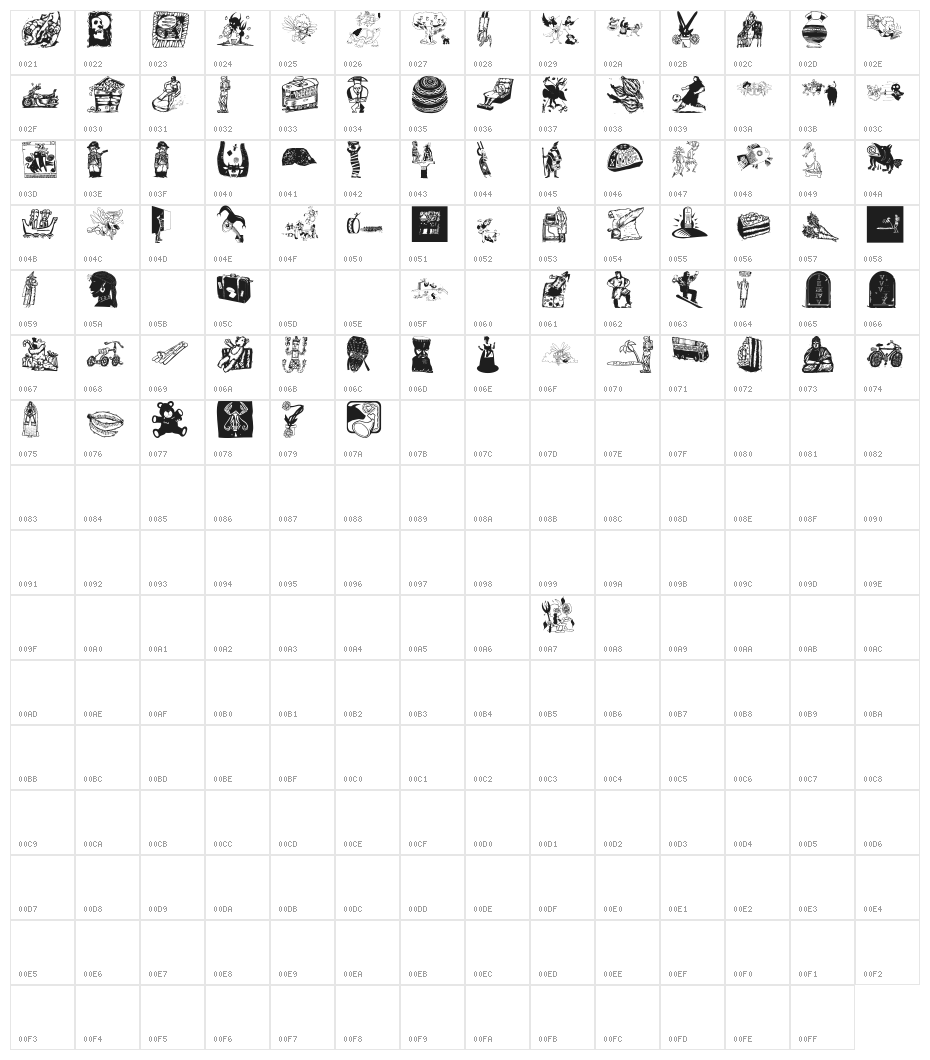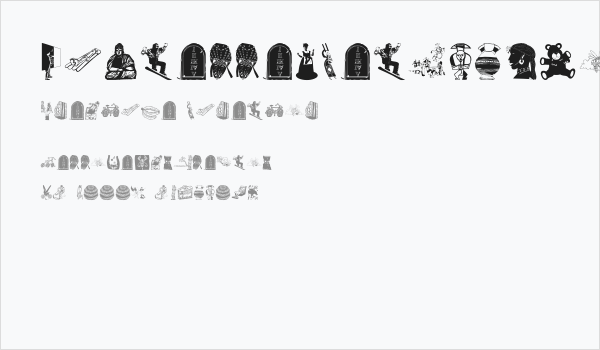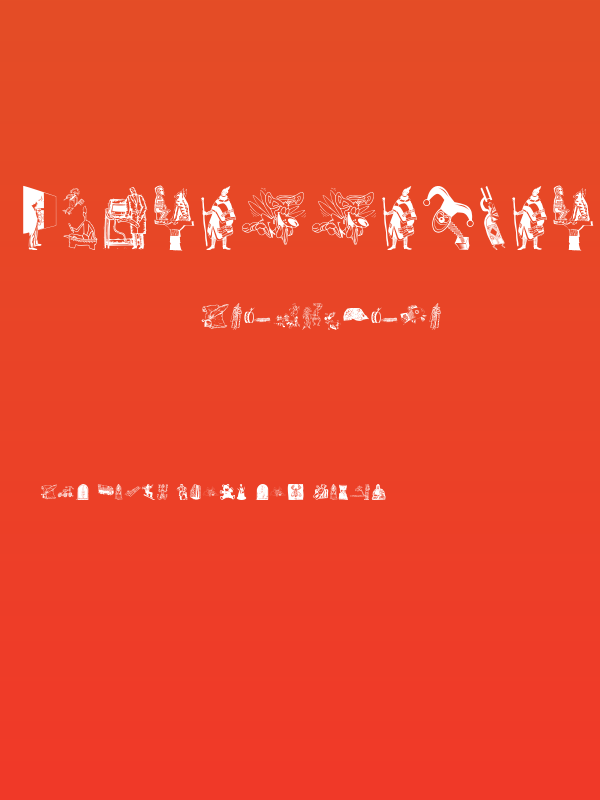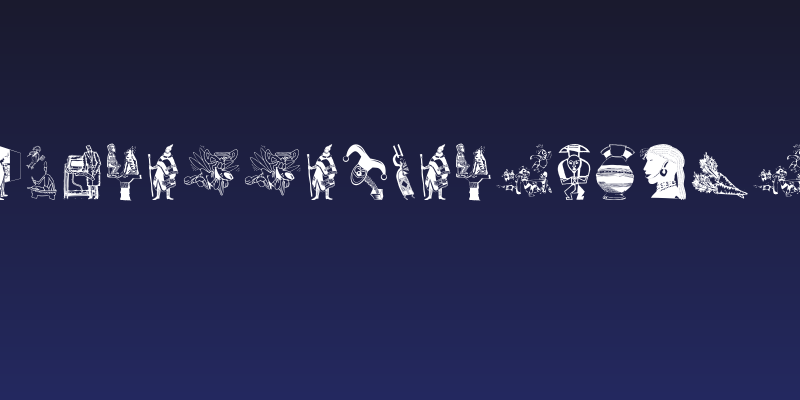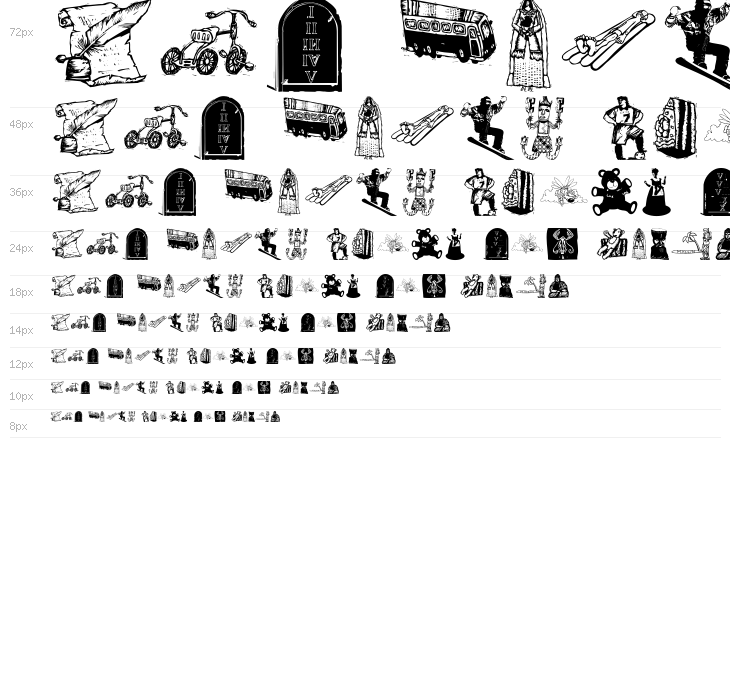
MiscellenDecO4-Zwo Font
MiscellenDecO4-Zwo Description
A highly decorative and eclectic collection of black-and-white illustrated glyphs, each character represented by a unique, detailed drawing or pictogram with a playful, whimsical, and sometimes surreal style. The set includes a wide variety of objects, people, animals, and abstract forms, with significant variation in complexity and visual density across characters.
| Overall Style | Decorative, Whimsical, Artistic |
| Use Case | Illustrative headlines, creative projects, visual storytelling, thematic graphics. |
| Proposed Projects | Children's books, educational materials, creative posters, art projects, themed event invitations, visual storytelling, scrapbooking. |